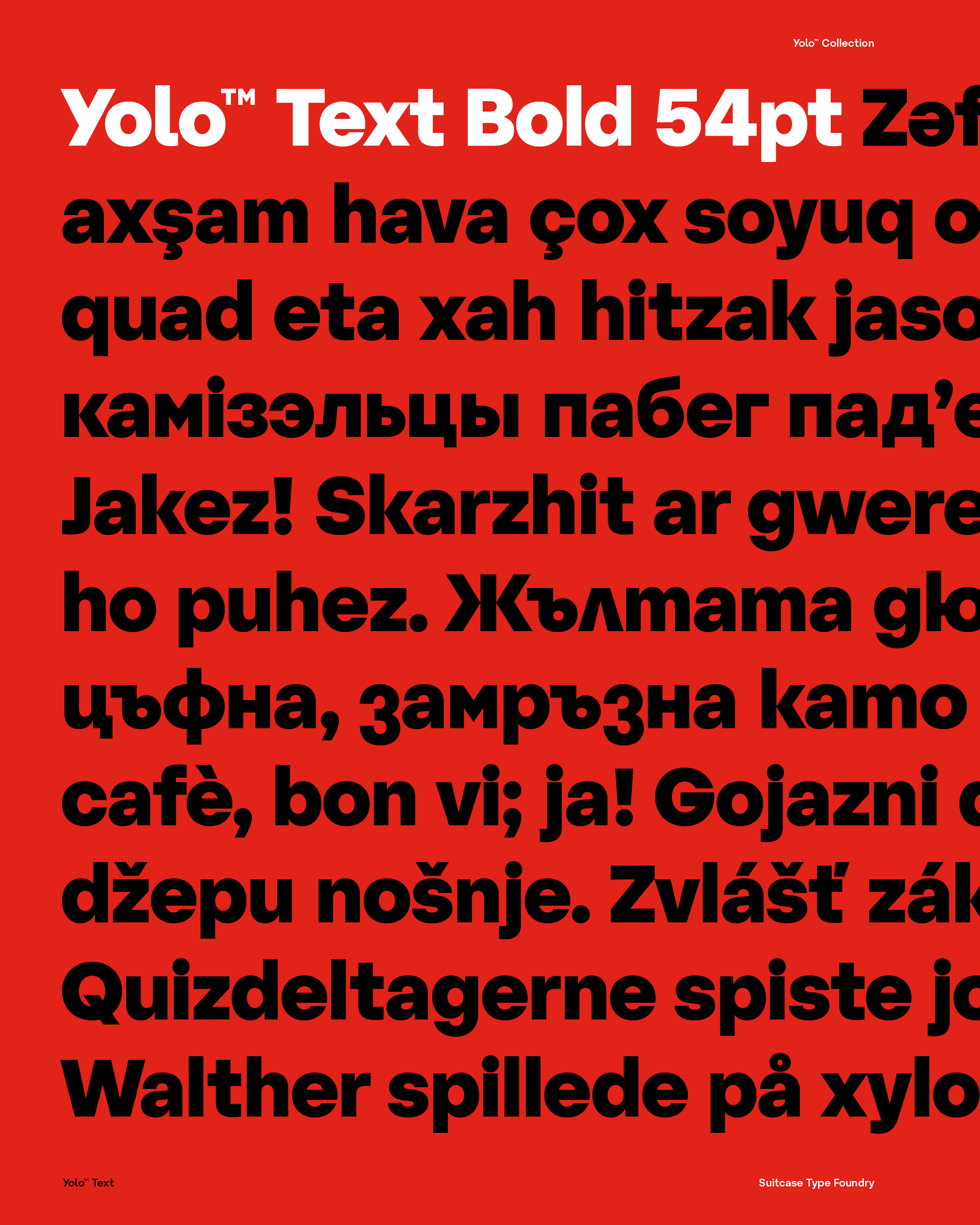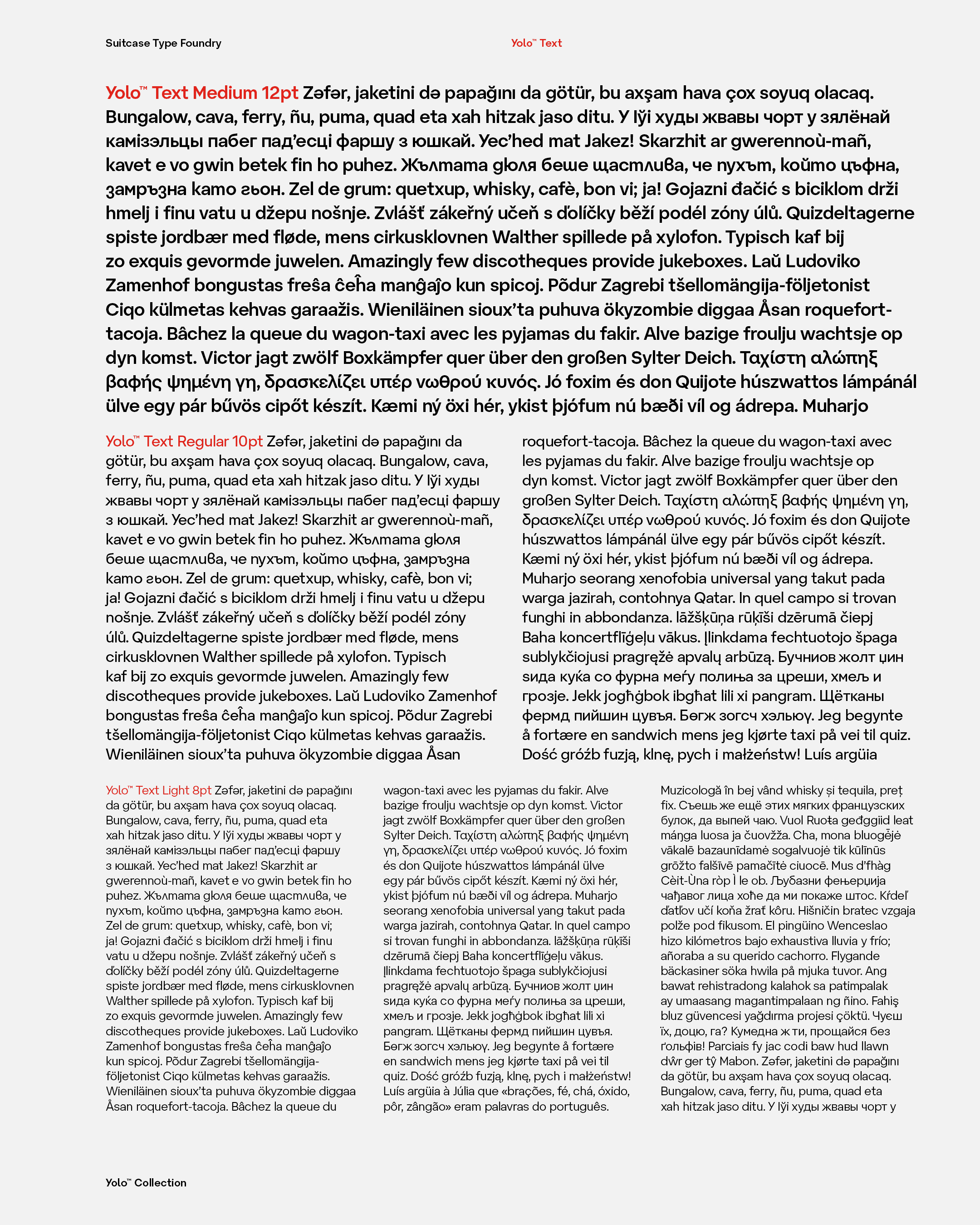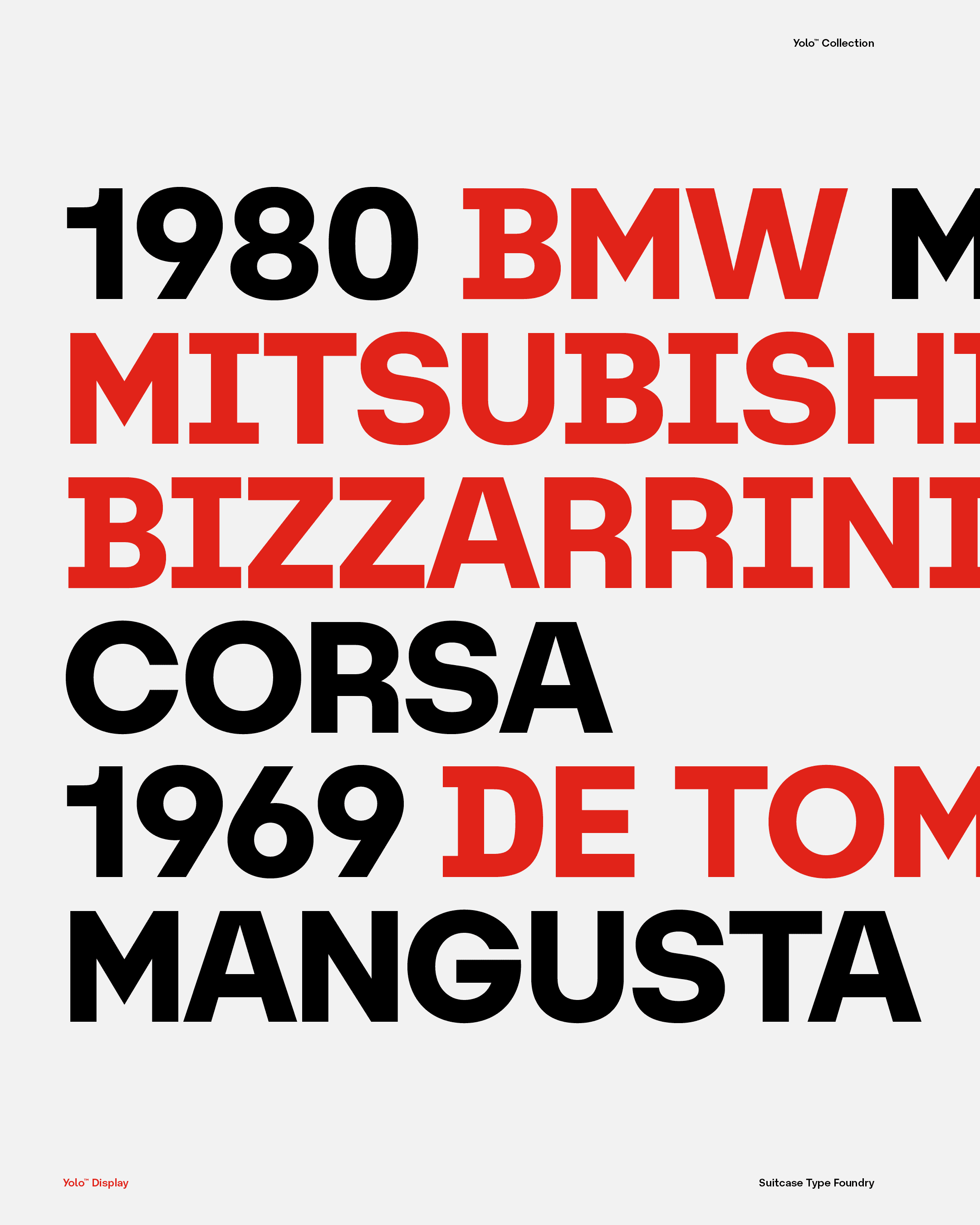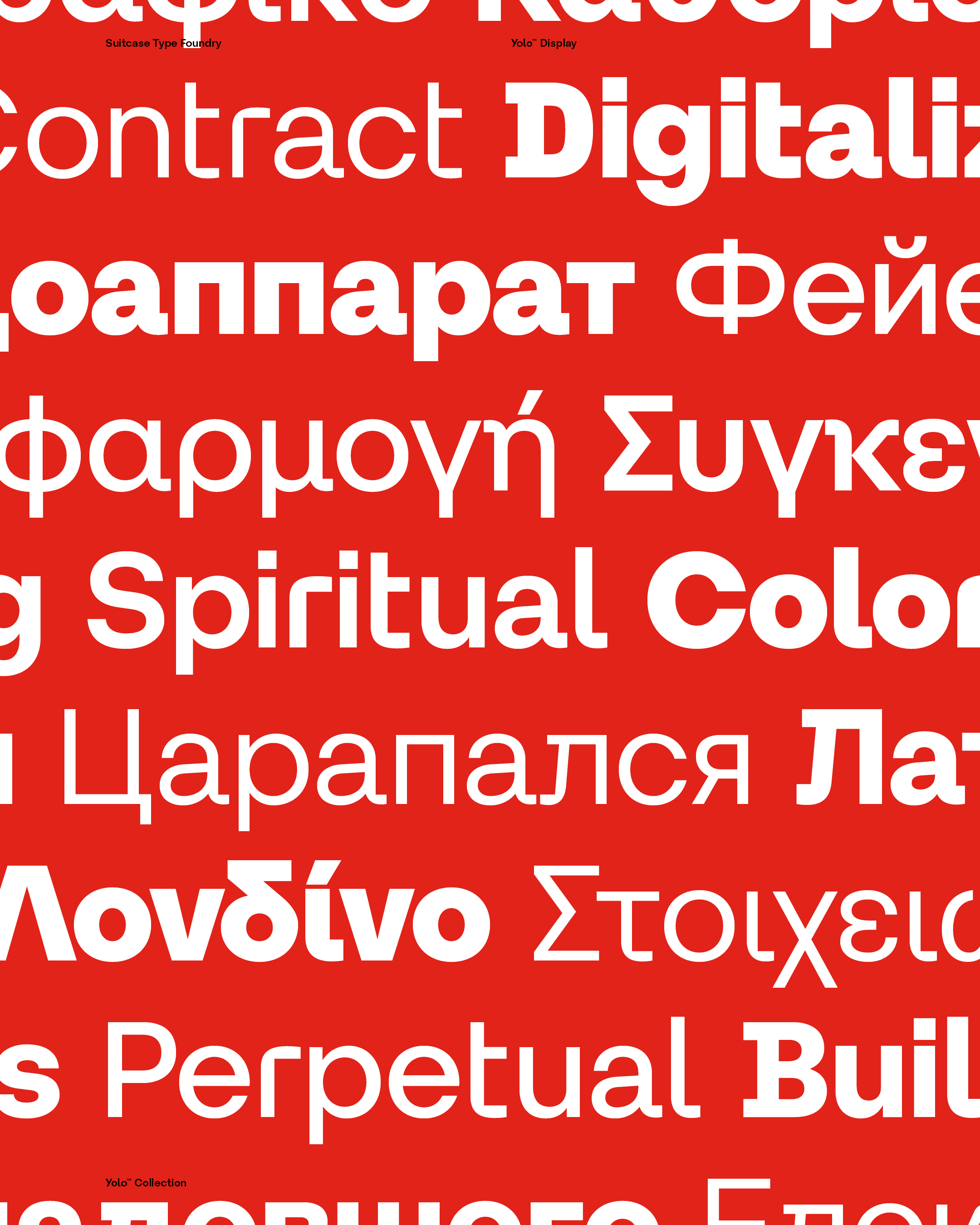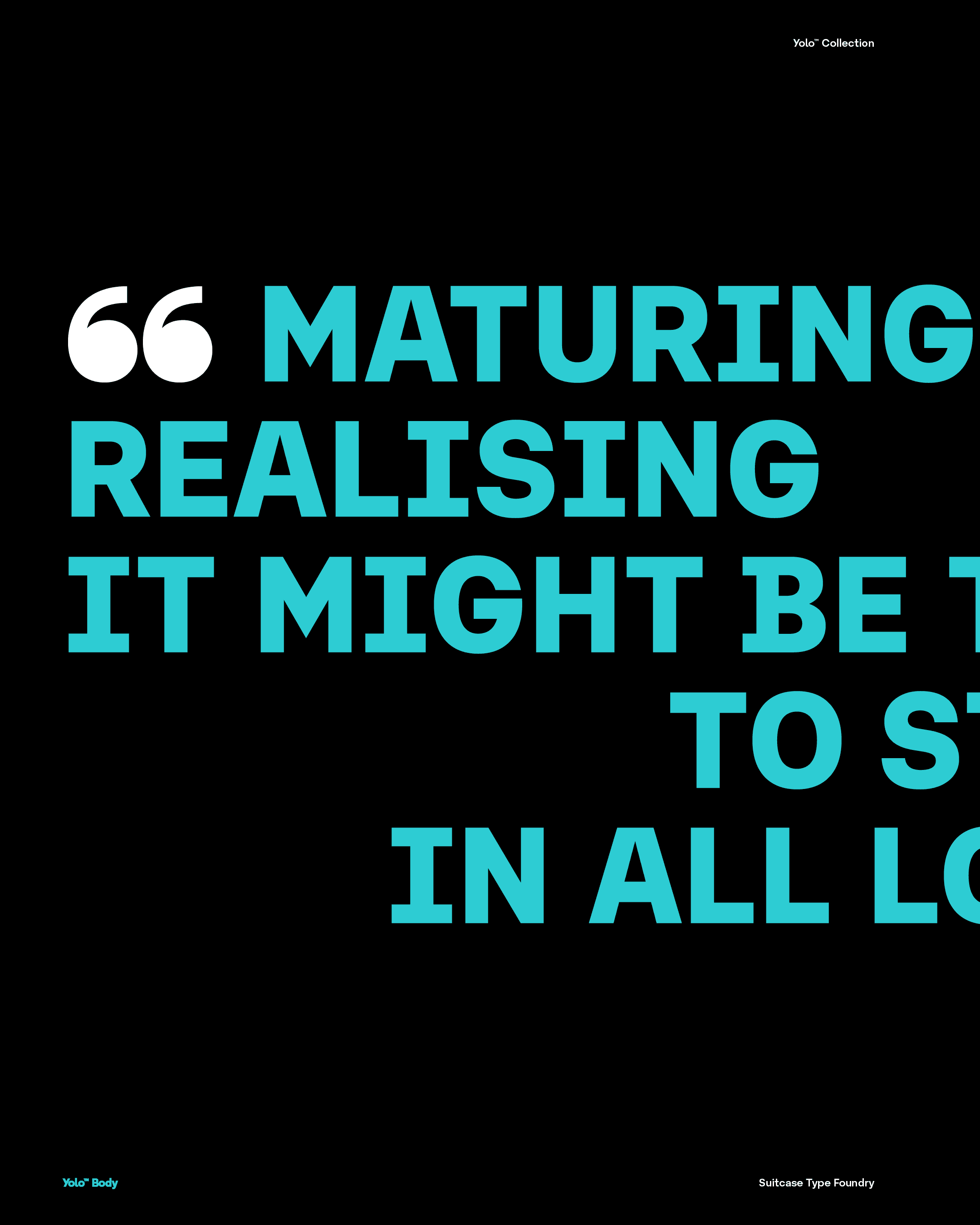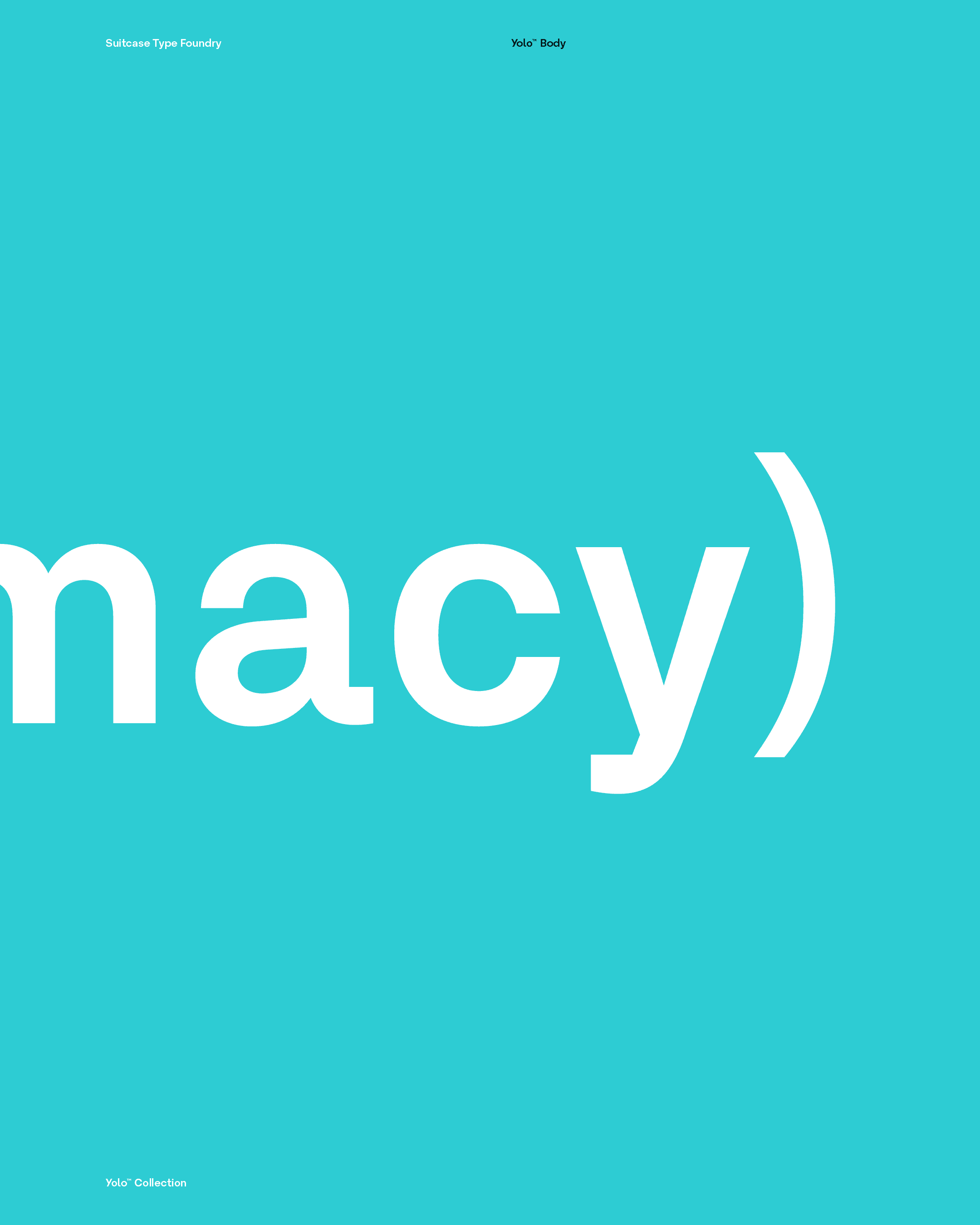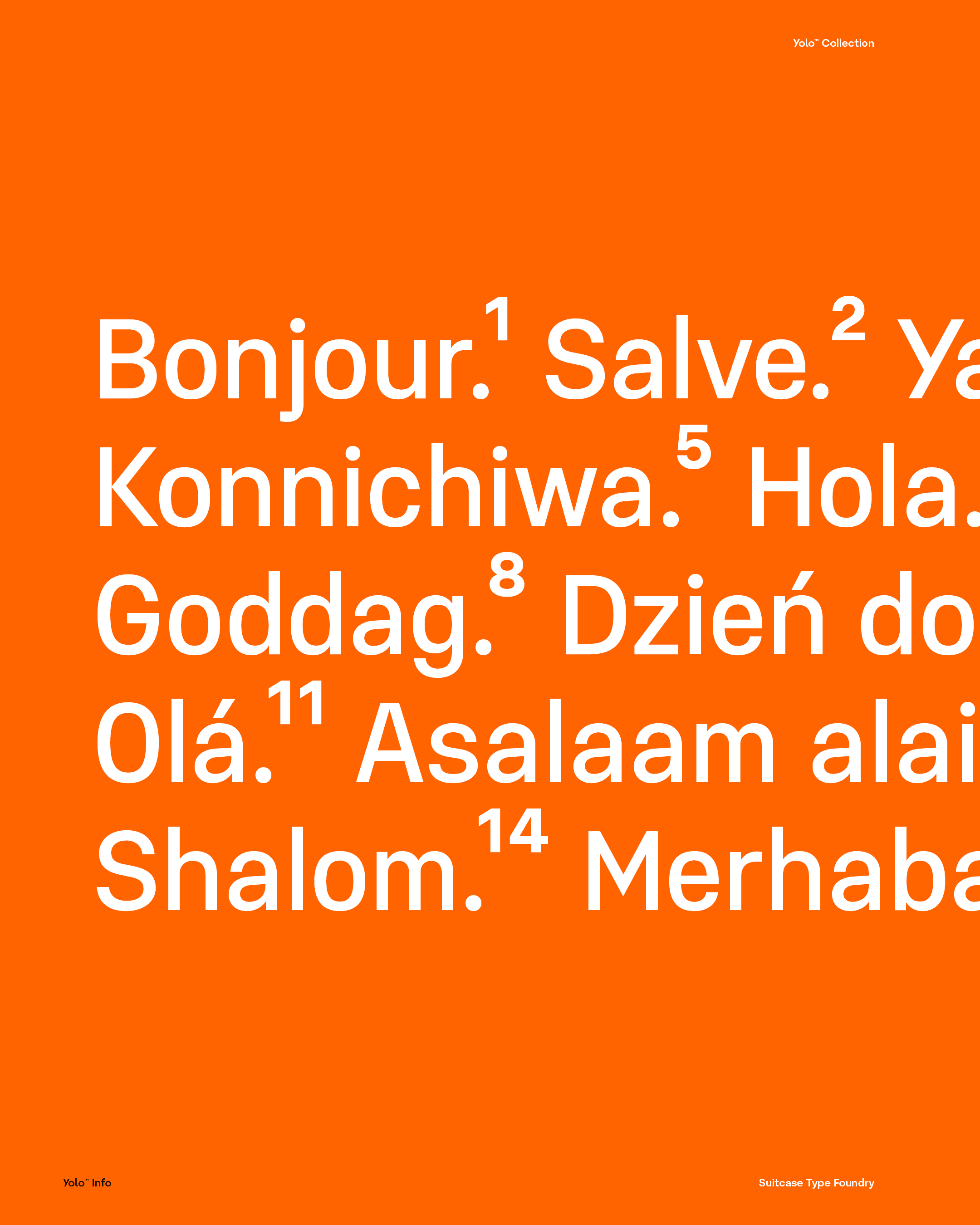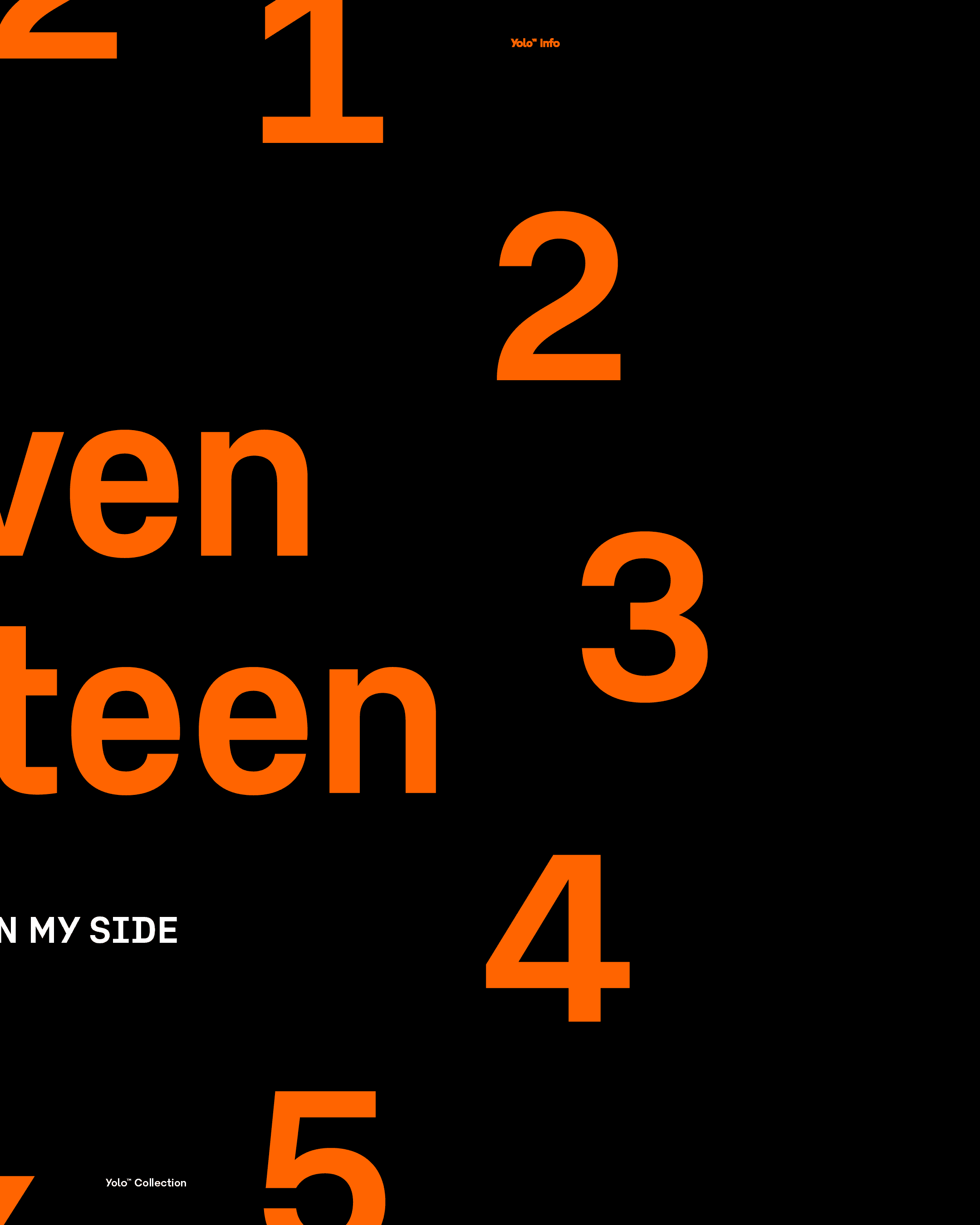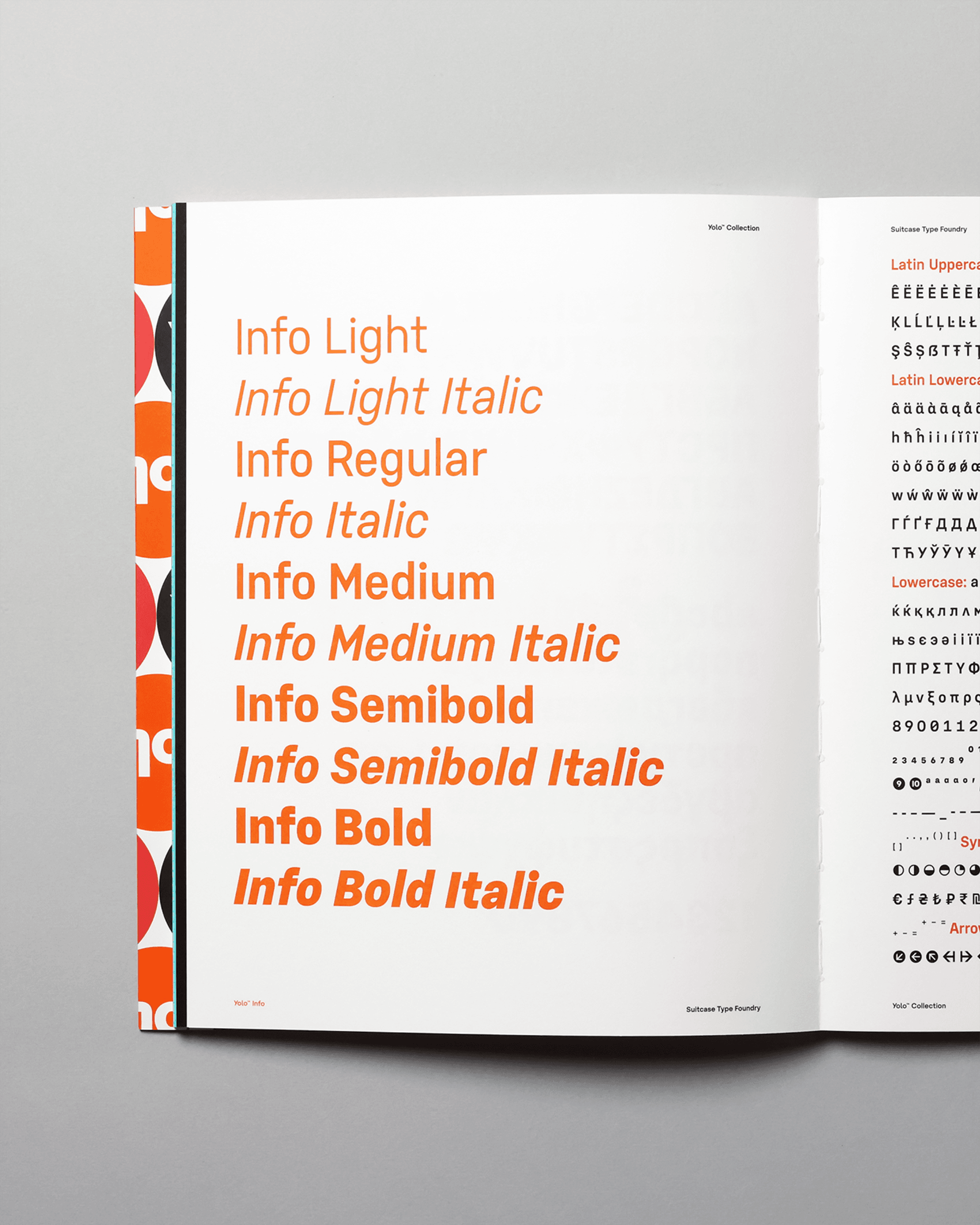
Yolo™ Collection
Yolo™ is a geometric type system that combines technical precision with an unexpectedly warm and approachable expression. Built from a disciplined modular structure, it ranges from a neutral workhorse to expressive display styles while preserving a remarkably consistent visual language. Rather than expanding a single design into multiple weights alone, the collection develops into four specialised subfamilies. Each shares the same geometric foundation while responding to different typographic situations.
The standard Yolo style includes everything you would expect from a dependable, all-purpose typeface: balanced proportions, a calm vertical rhythm, and consistently finished stroke terminals.
The numerals feature an open design with nearly uniform proportions, yet remain highly distinguishable even under less-than-ideal viewing conditions. The character set includes proportional, tabular, fractional, and superscript figures.
The universal validity of neo-grotesque predestines this typeface as a reliable workhorse for complete typographic work. The meticulous drawing in detail, the exact spacing, and the multitude of character alternatives, on the one hand, make Yolo a timeless tool for creating logotypes.
The Display style is defined by auxiliary horizontal serifs that take on a decorative role. At the same time, the reduced left-hand crossbars of the f and t, characteristic of display typefaces, allow for a tighter typographic rhythm. The dot is square.
Every upright style has a corresponding italic counterpart. Since these are not humanist italics and retain the same underlying letterforms, the italics are set at a relatively pronounced 12-degree angle.
At the same time, its extensive range of weights and italics is dedicated to composing entire identities. OpenType functions include several types of numerals, case-sensitive punctuation, or even arrow alternation. The character set offers a variety of symbols and shapes to enrich the raw typesetting, from useful currency symbols to gigantic quotation marks.
Yolo Body is intended for medium-length reading. Its serifs improve character recognition at smaller sizes, while slightly narrower proportions and more generous spacing enhance readability.
Every weight includes stylistically and proportionally matched diacritics, along with localized alternates as standard.
In addition to the Latin script, the font includes Cyrillic and Greek, covering the needs of over 3 billion potential users, making Yolo a highly effective tool with a global reach.
The semi-condensed Info style can be used either as a display companion to the standard style or on its own whenever space is limited.
Every Yolo style includes, in weights appropriate to each design, an extensive collection of supplementary glyphs, arrows, and ornaments.
Customizing Yolo
Even before its public release, pre-production versions of Yolo had already served as the basis for several custom typeface projects, confirming the flexibility of the system in real-world applications.
This approach makes it possible to create a distinctive corporate typeface in a fraction of the time required for designing a family from scratch.
The brand family unites the group's activities across insurance, mobility, financing, or investment. (Explore the project ⤴)
The popular network of KRO restaurants, bistros, and cafés uses a customized version of Yolo as the foundation of its new visual identity.
A typeface including three scripts created for the unified visual identity of the Czech Republic. (Explore the project ⤴)